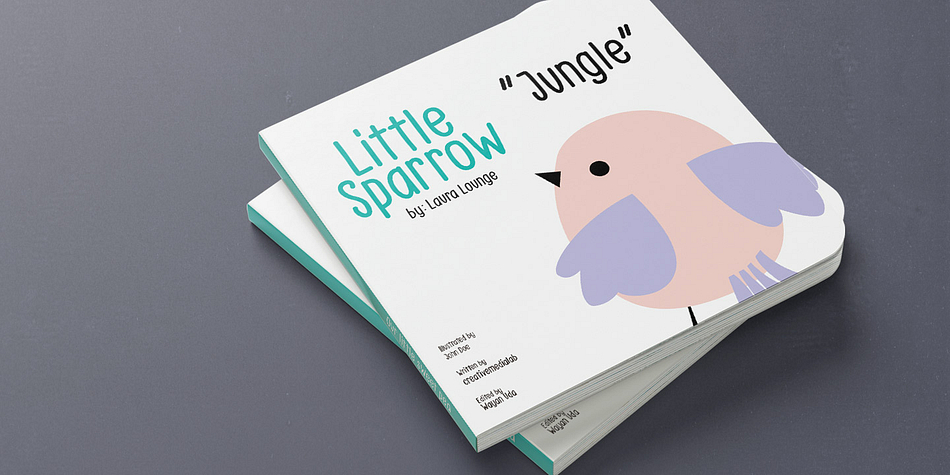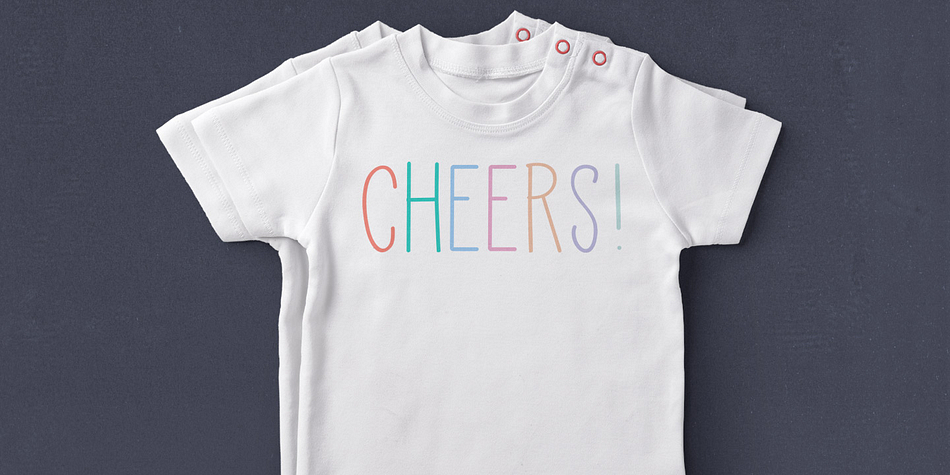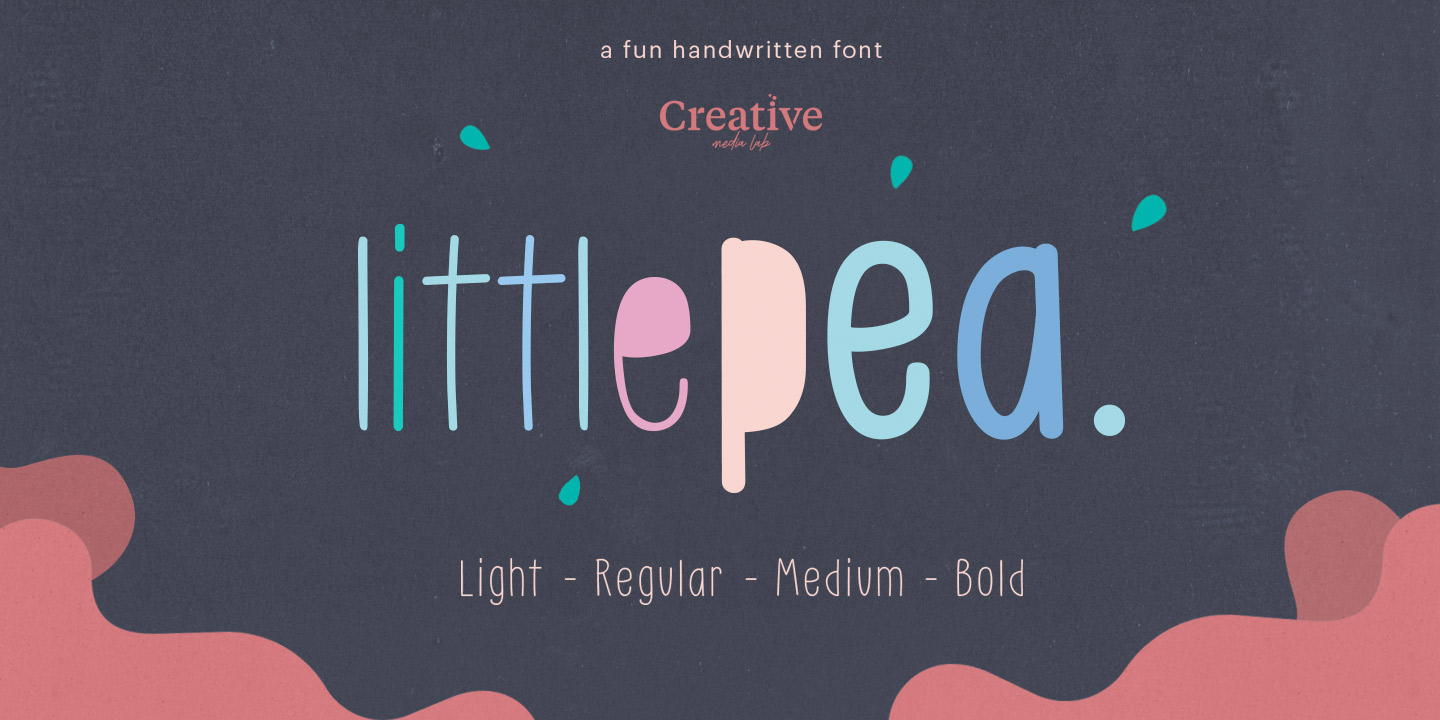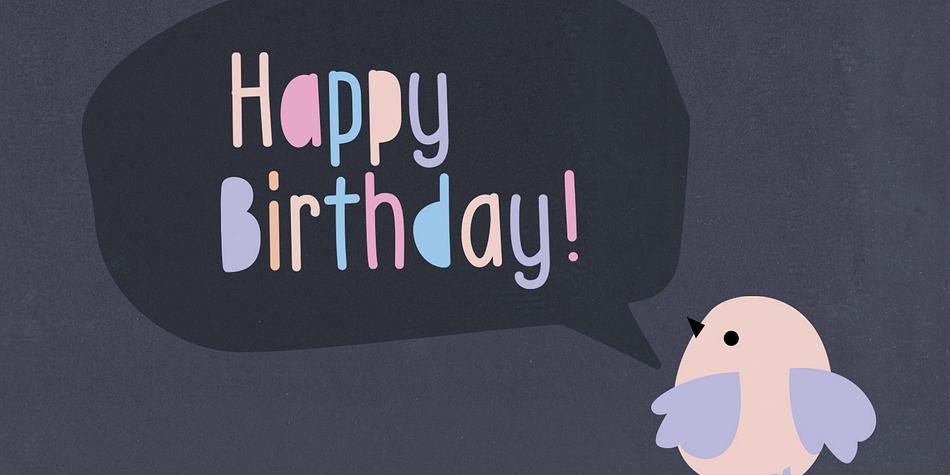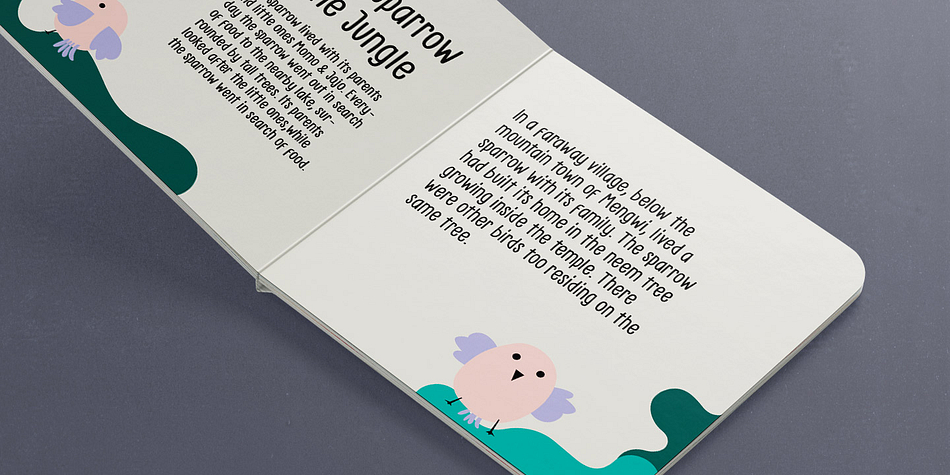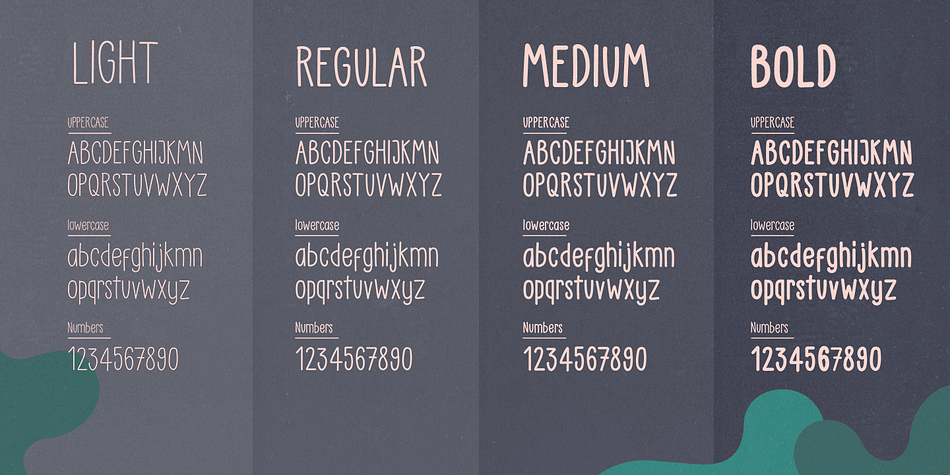
Little Pea is a hand display, hand drawn and kids font family. This typeface has four styles and was published by Creative Media Lab.
Little Pea is a cute and fun handwritten font, comes with four family weights: light, regular, medium and bold.
the idea in making this font is the wishful thinking of childhood memory, where everything looks so cheerful, colorful and fun.
Little Pea font will make your design look modern but still fun. Easy to read and perfect for any design that need a colorful and fun concept like children comic or picture books, greeting cards, toys, posters, song lyrics, website, and much more.